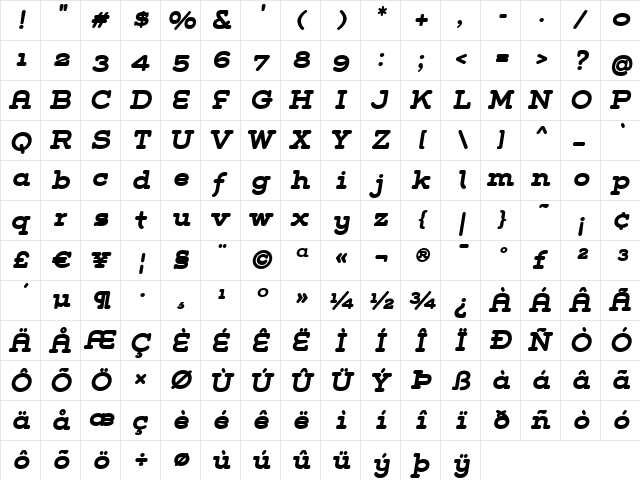
Grover Slab Bold Italic Font Preview
| Foundry | Alejandro Paul |
| Designer | Alejandro Paul |
Design Context for Grover Slab Typeface
Grover Slab combines the readability of serif typography with the visual weight of a slab construction, resulting in a typeface that feels both authoritative and approachable. The slanted form adds forward momentum and visual energy. The heavy weight commands attention and anchors typographic hierarchies.
Suited to magazines, political campaign materials, bold packaging, and any setting where authority matters.